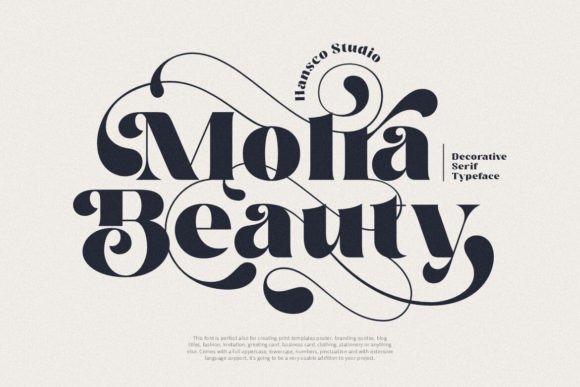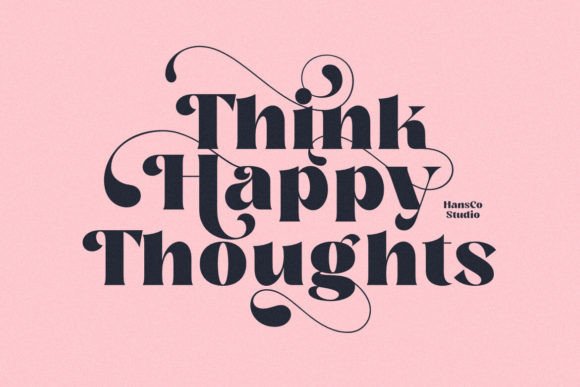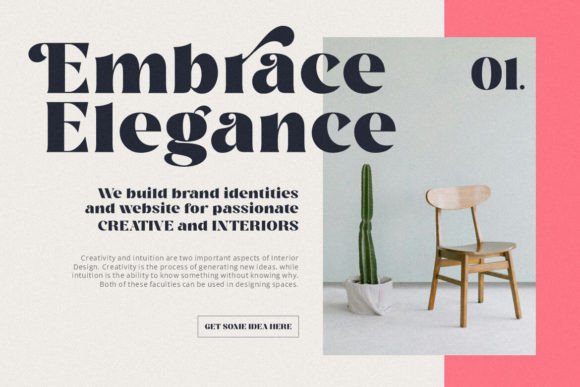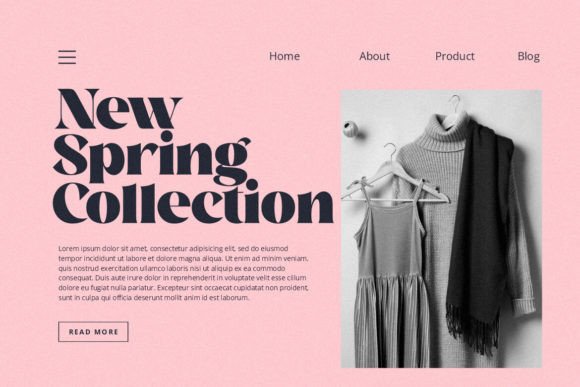
Molra Beauty Font: Chic Retro Serif for Modern Logo Design & Branding
About the Molra Beauty Font
We are excited to introduce Molra Beauty Font, a must-have typeface for any serious designer. We are proud to present the retro casual with modern style Molra Beauty Font. This font is made by carrying the concept of a fun and chick serif with swash style in some characters, so it is friendly and suitable for application in any project like a logo or brand identity and packaging design projects. You can find alternative characters in this Molra Beauty Font. This font is perfect also for creating print templates like posters, branding, quotes, blog titles, fashion, invitations, greeting cards, business cards, clothing, stationery or anything else.
Molra Beauty Font Usage Examples
Molra Beauty Font Example